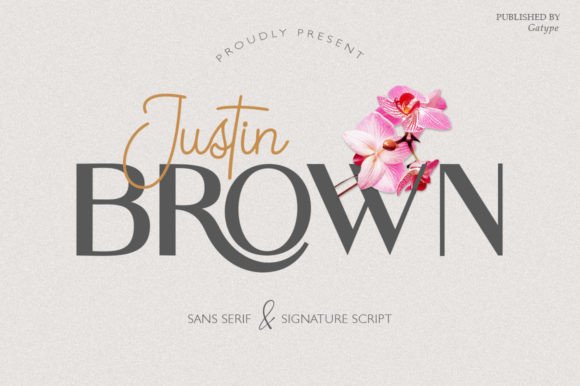
Looking for the perfect font for your next design project? Look no further than Justin Brown Duo Font! This exquisite font duo, created by gatype, combines a sleek sans serif with a luxurious signature script to bring a unique spark to any design.
One of the best fonts for text wrapping, Justin Brown Duo Font is the perfect choice for adding a touch of luxury to your next project. With its PUA encoding, accessing all the glyphs and ligatures is a breeze, making it easier than ever to create the perfect design.
Whether you're working on a logo, a website, or any other type of design project, Justin Brown Duo Font is the perfect choice. Its unique combination of sleek lines and luxurious curves is sure to make your designs stand out from the crowd.
In summary, Justin Brown Duo Font is a must-have for anyone looking to create beautiful, unique designs. So don't miss out - download it today and see for yourself why it's one of the best fonts for text wrapping on the market!